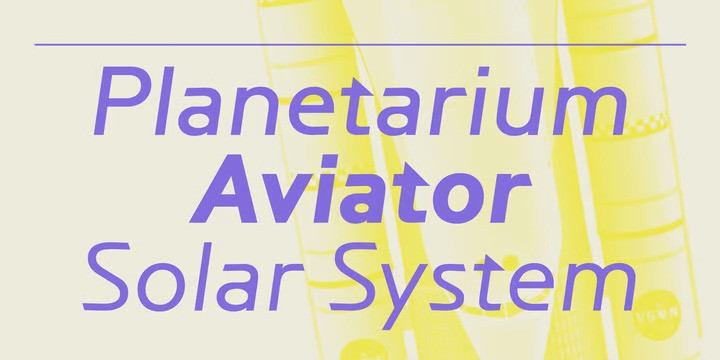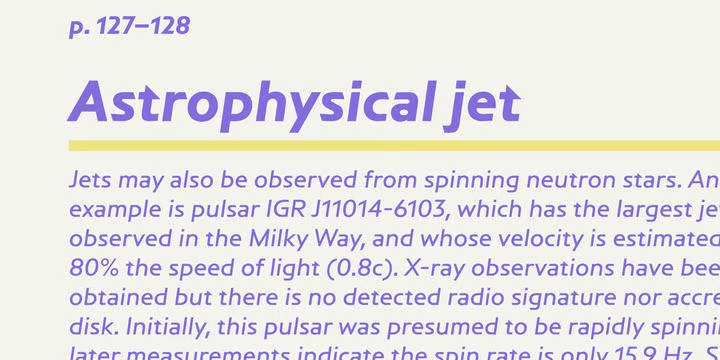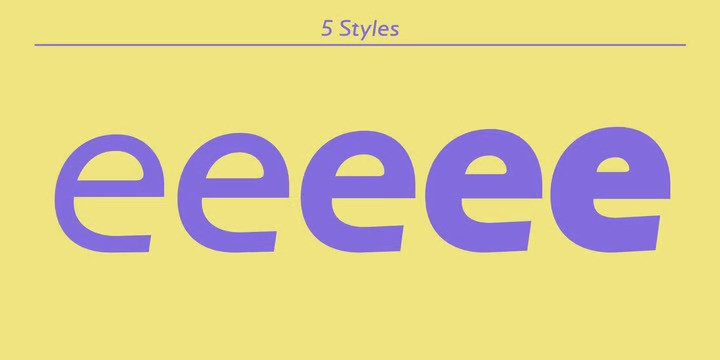
Jet Font Family
Jet Sans Serif Font is a modern sans serif display font that anticipates the return of the simpler, optimistic times when progress was considered positive and forward seemed to be the only way to go. It may have felt right at home in the mid-1970s, the time of Sc-Fi, synthetics and disco, yet it unmistakably belongs to the present. Its dynamic sturdy forms and angular tapering of some horizontal forms convey movement and edgy impatience for change, with a few re-imagined details, like the reversed slant on top of the lowercase t and the atypical round counter of the lowercase a, showing a new hope for the bygone optimism.